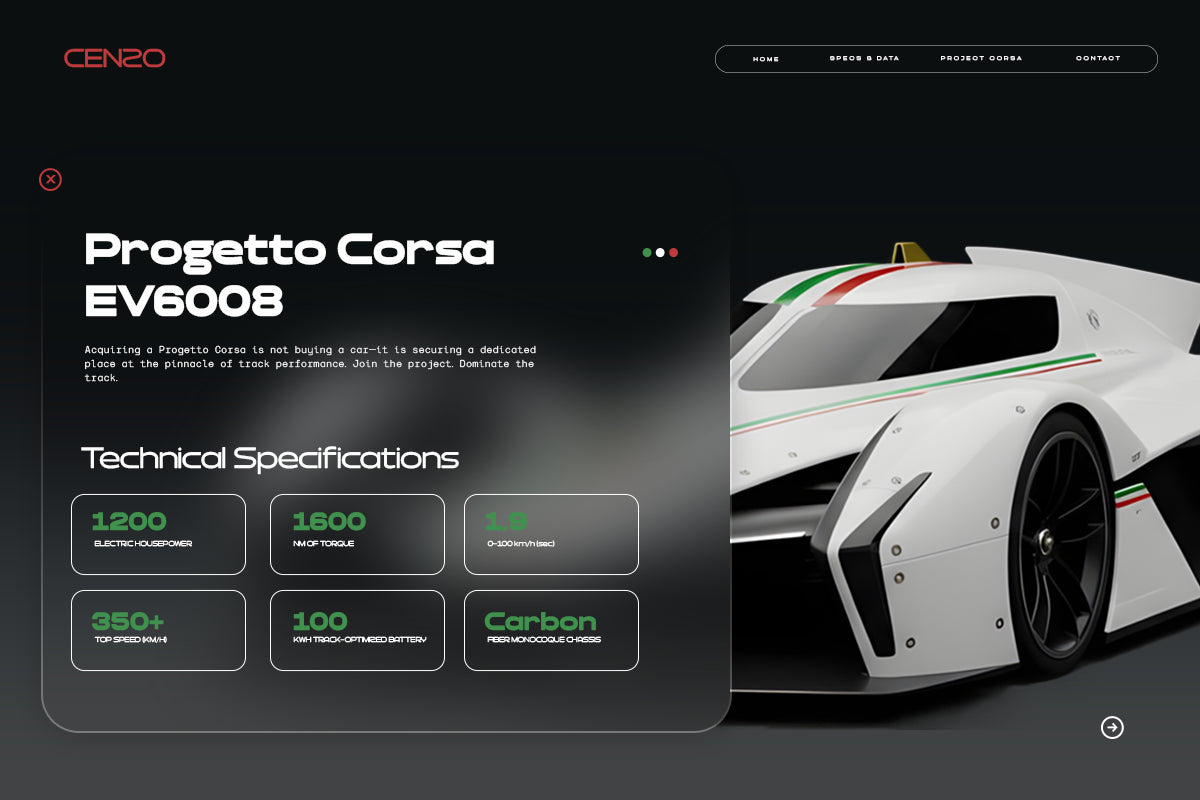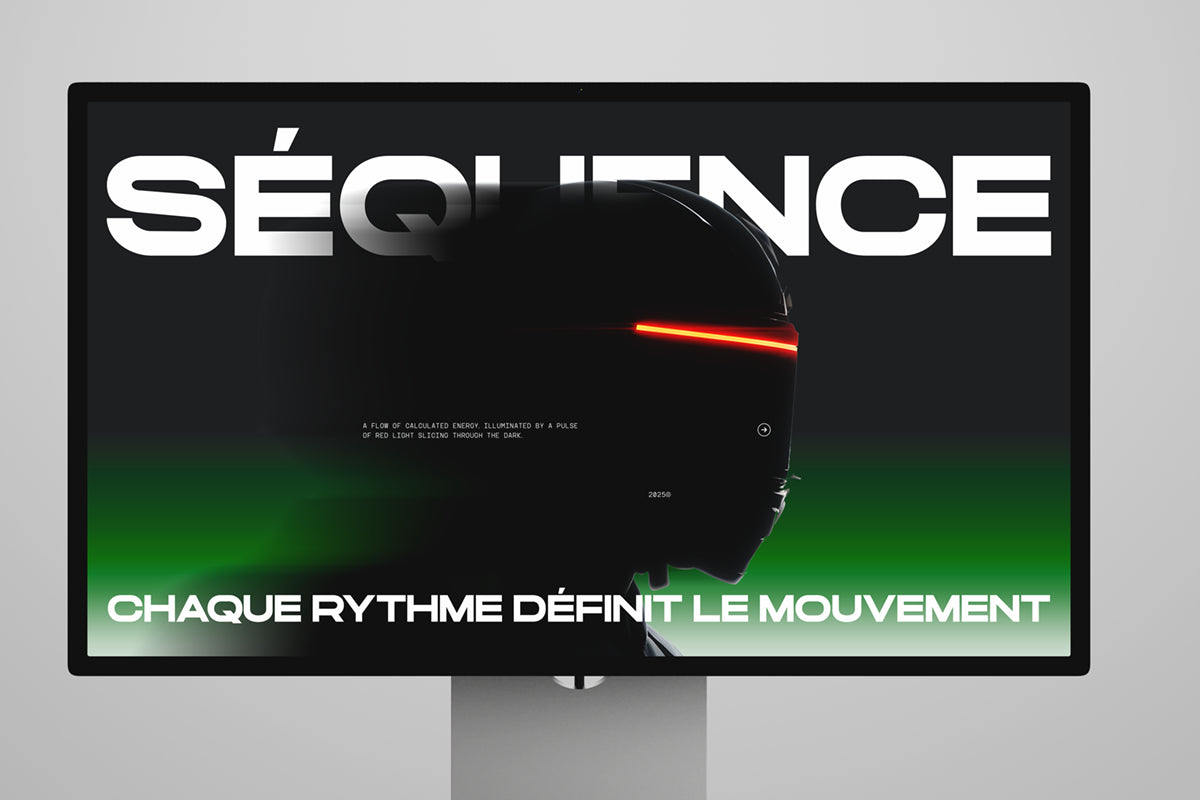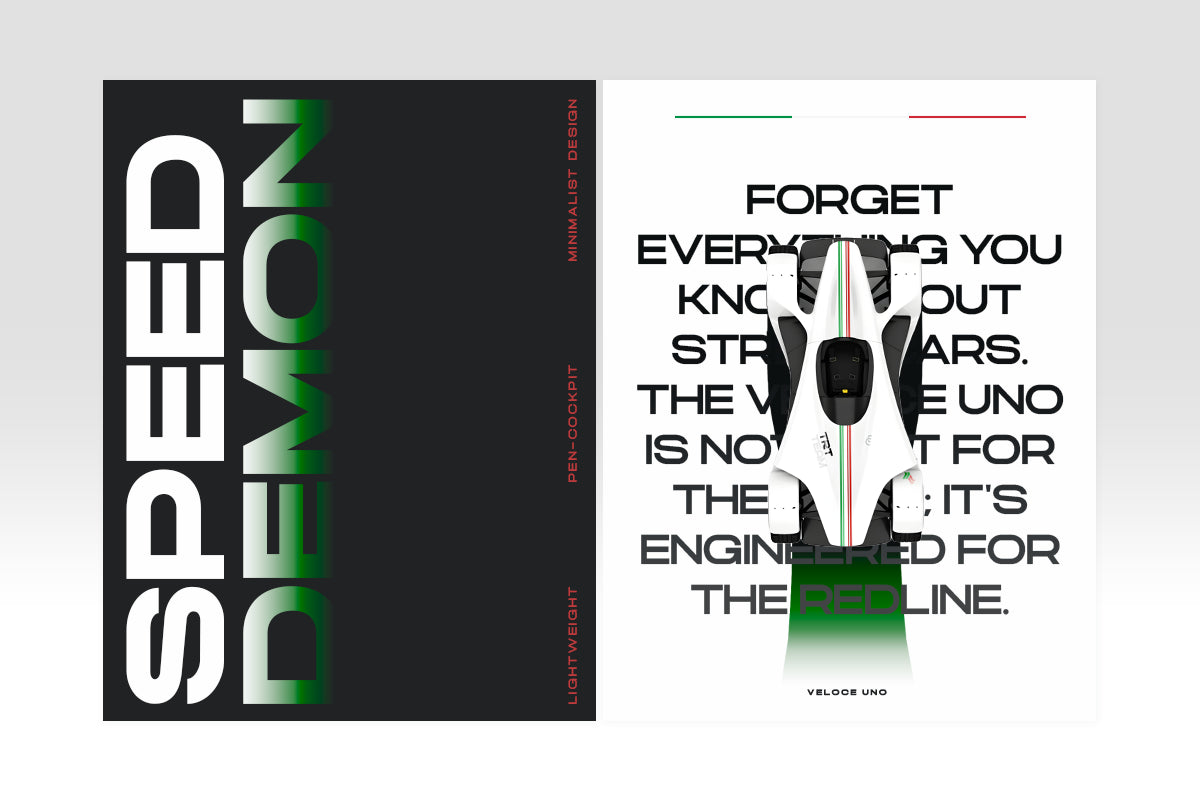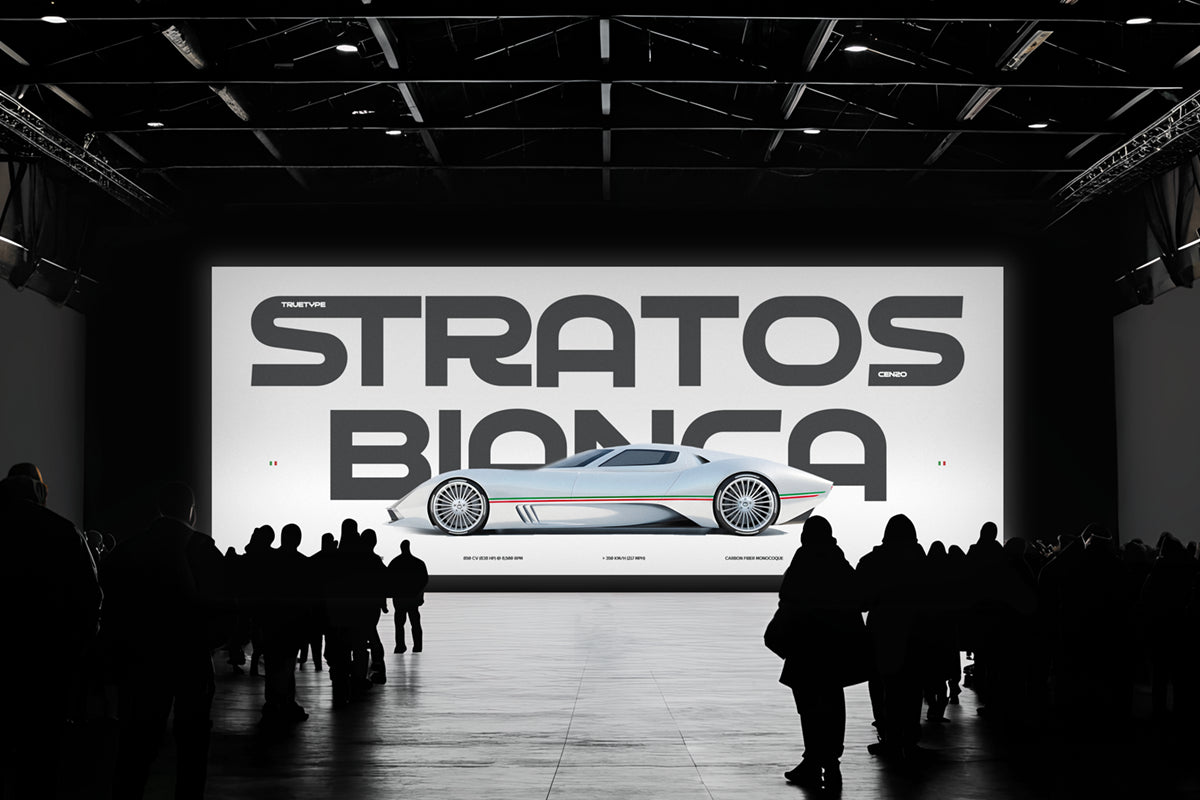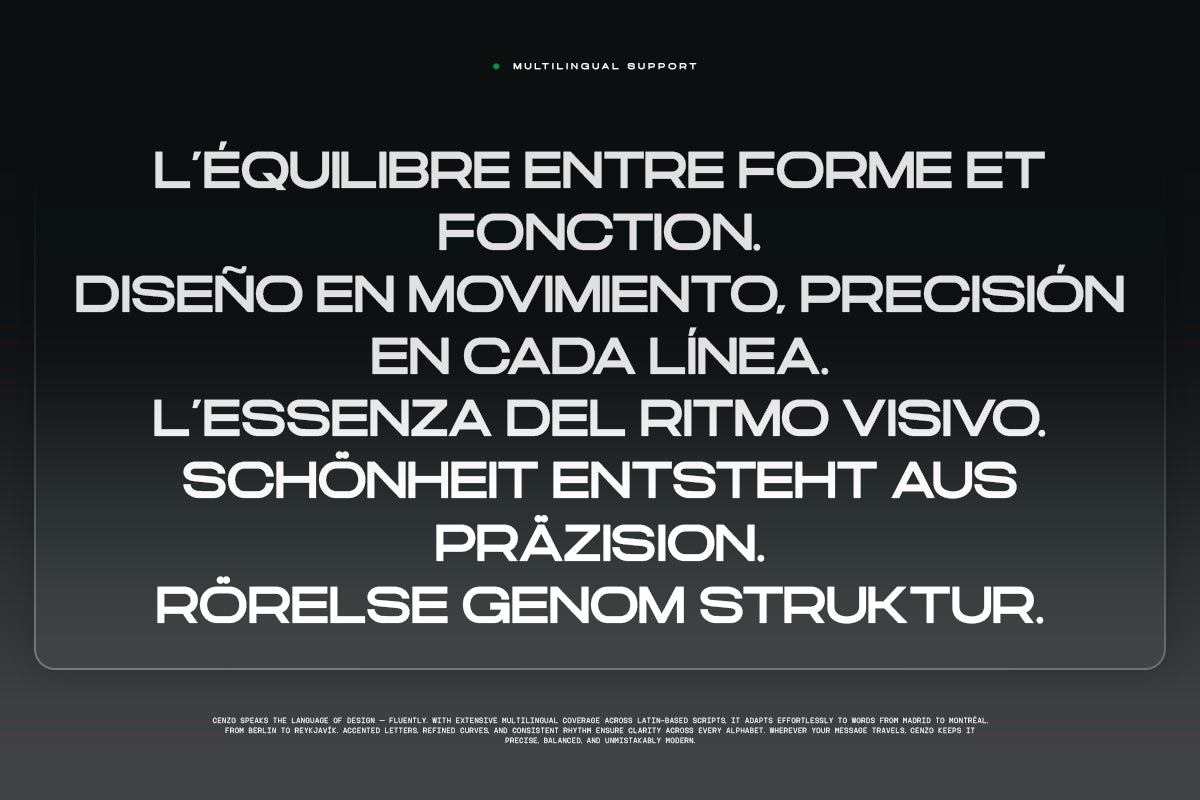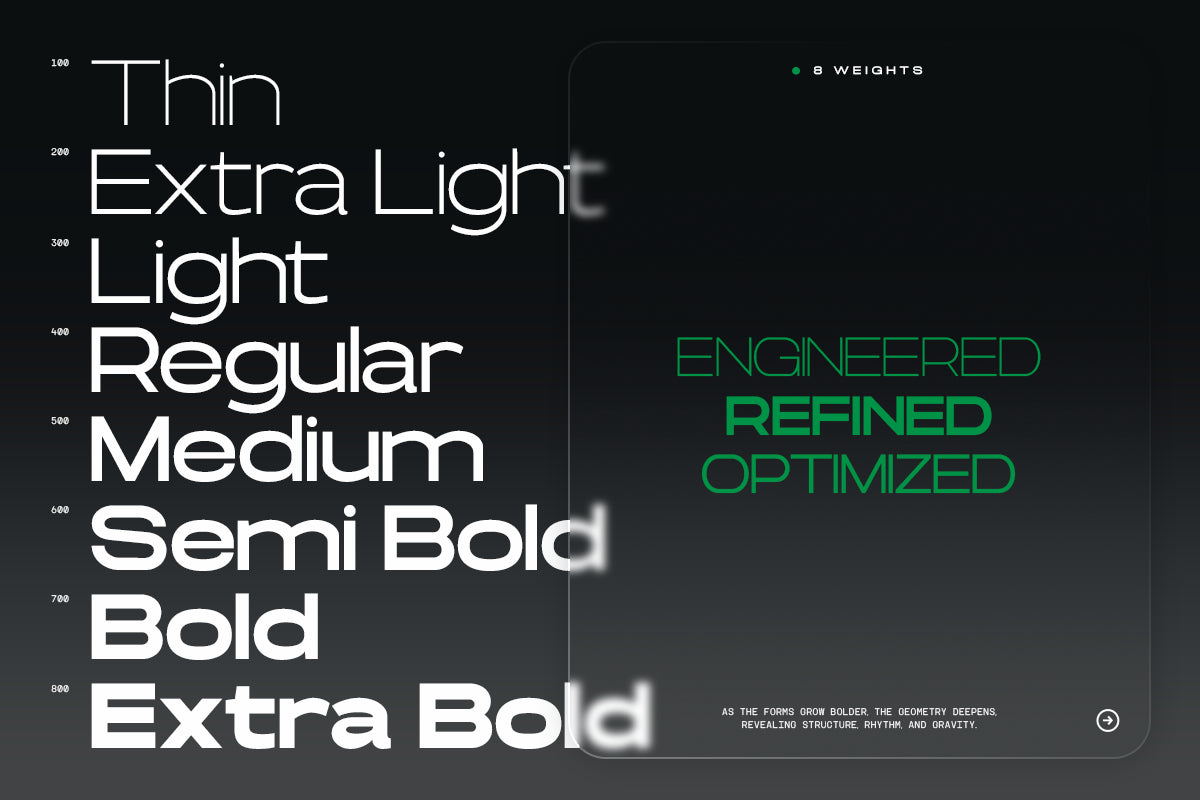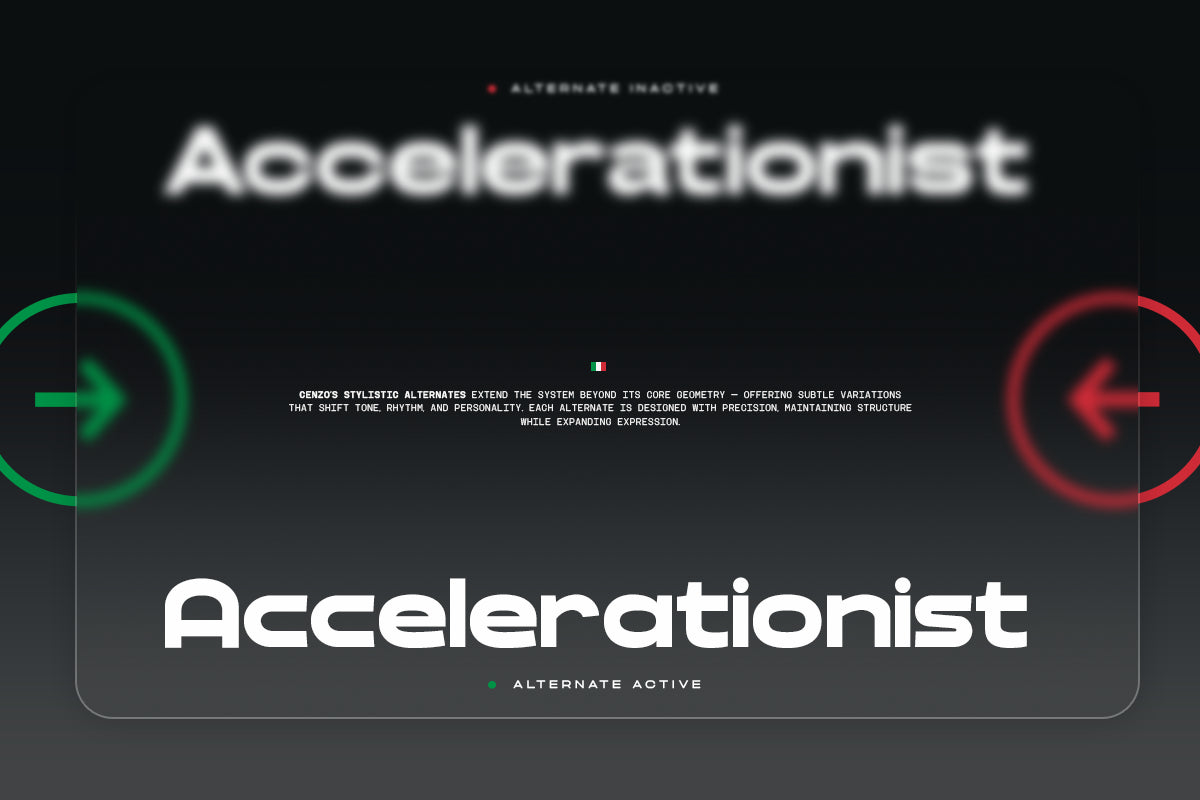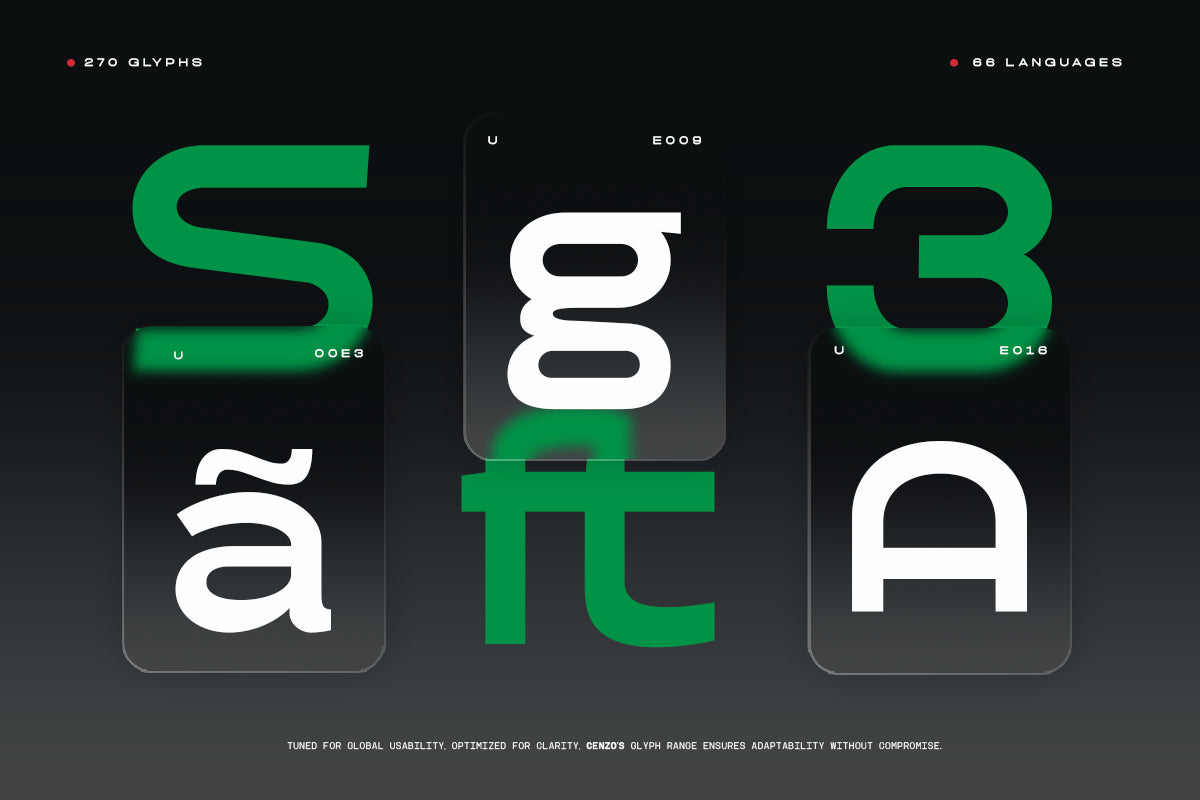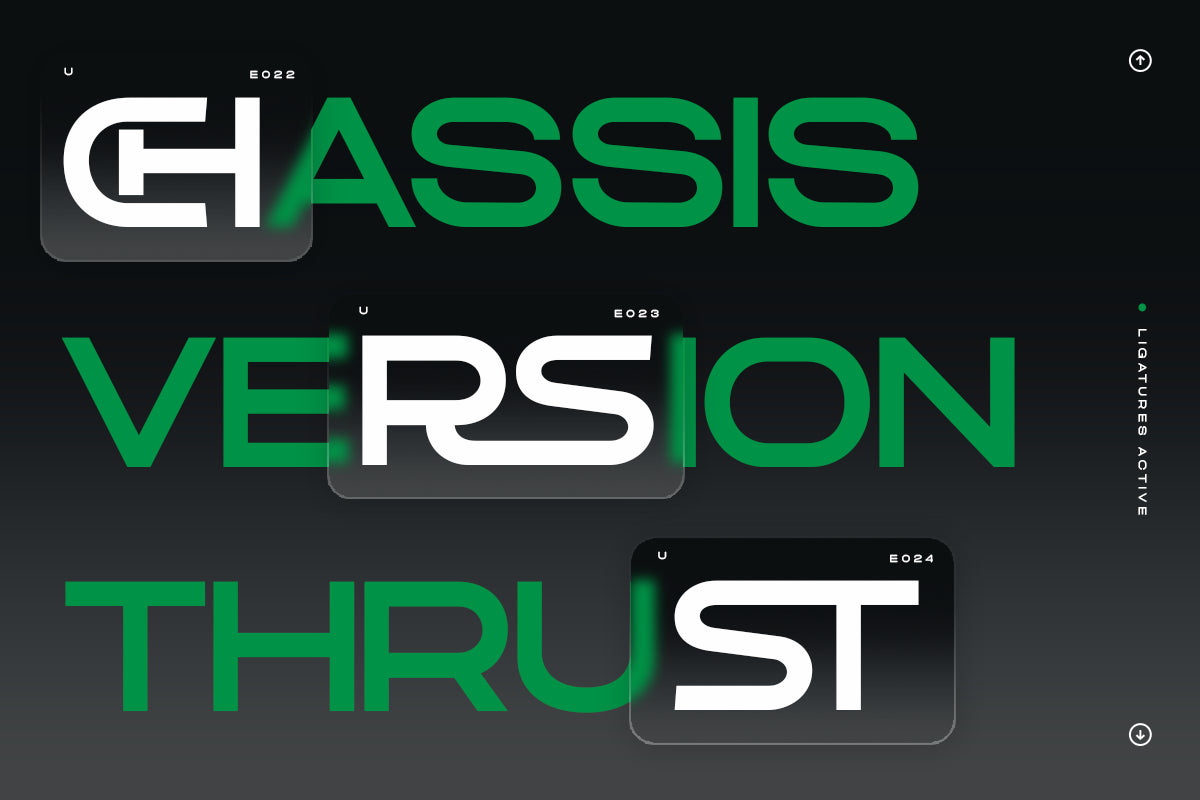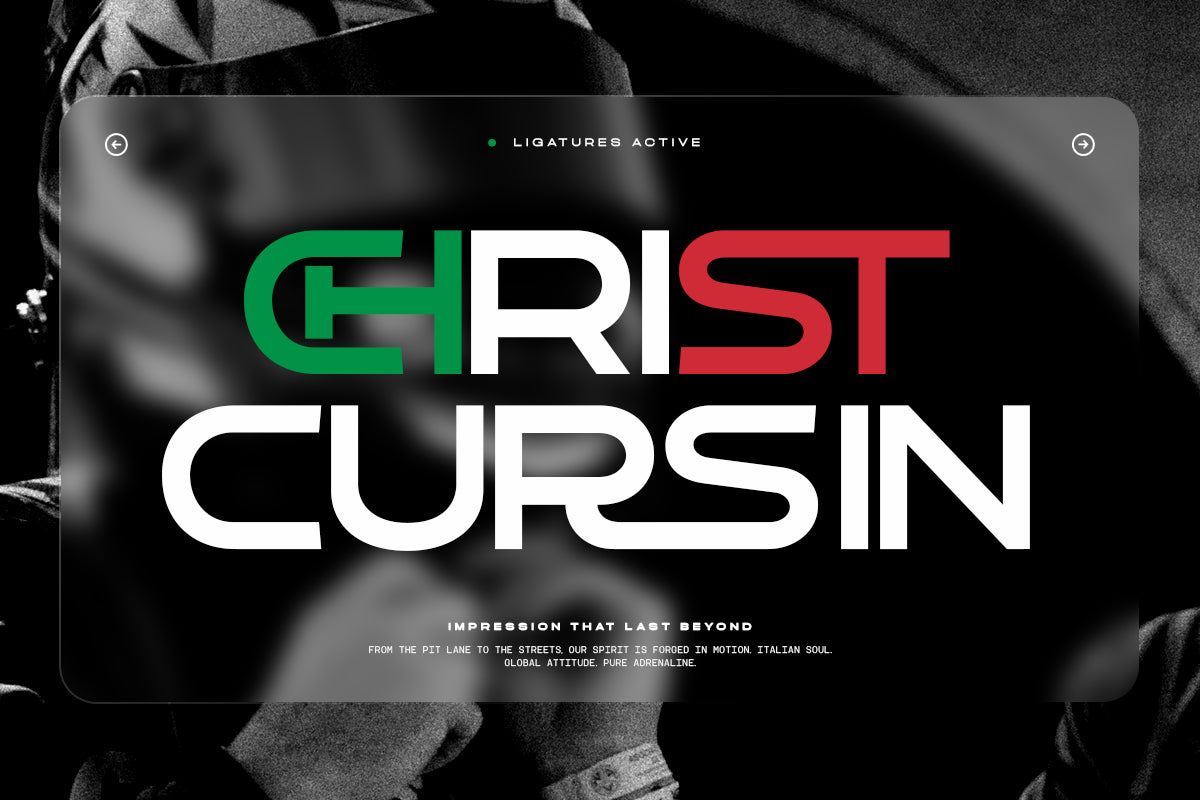
TRT Cenzo – Modern Futuristic Sans Serif Typeface
TRT Cenzo is a modern futuristic sans serif typeface characterized by bold geometry and balanced proportions, offering strong readability and a distinctive design. It includes alternate characters and standard ligatures, providing flexibility for creative typographic variations.